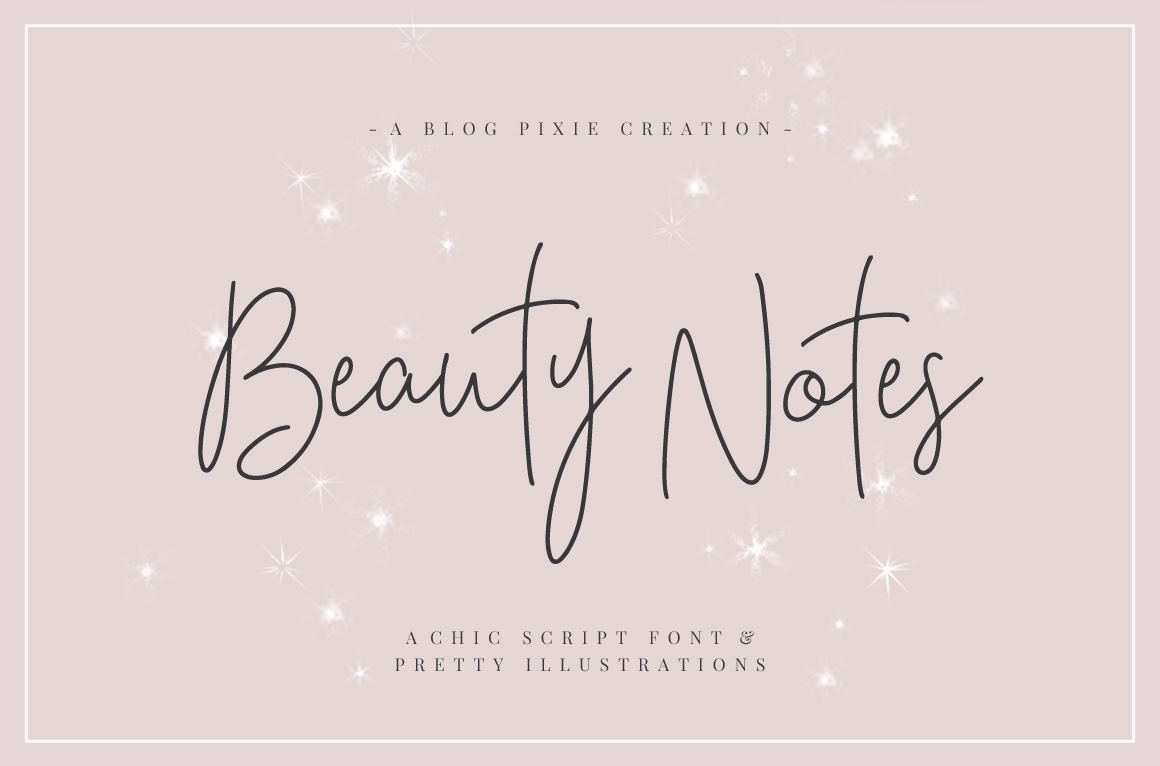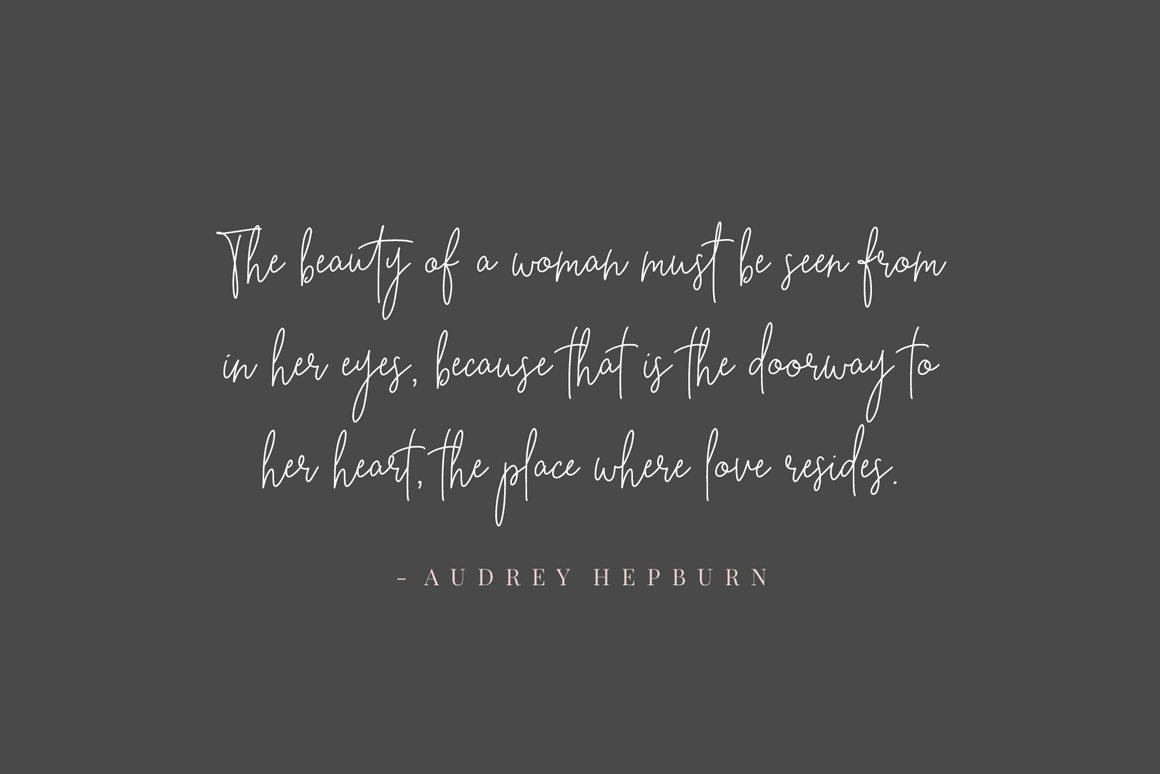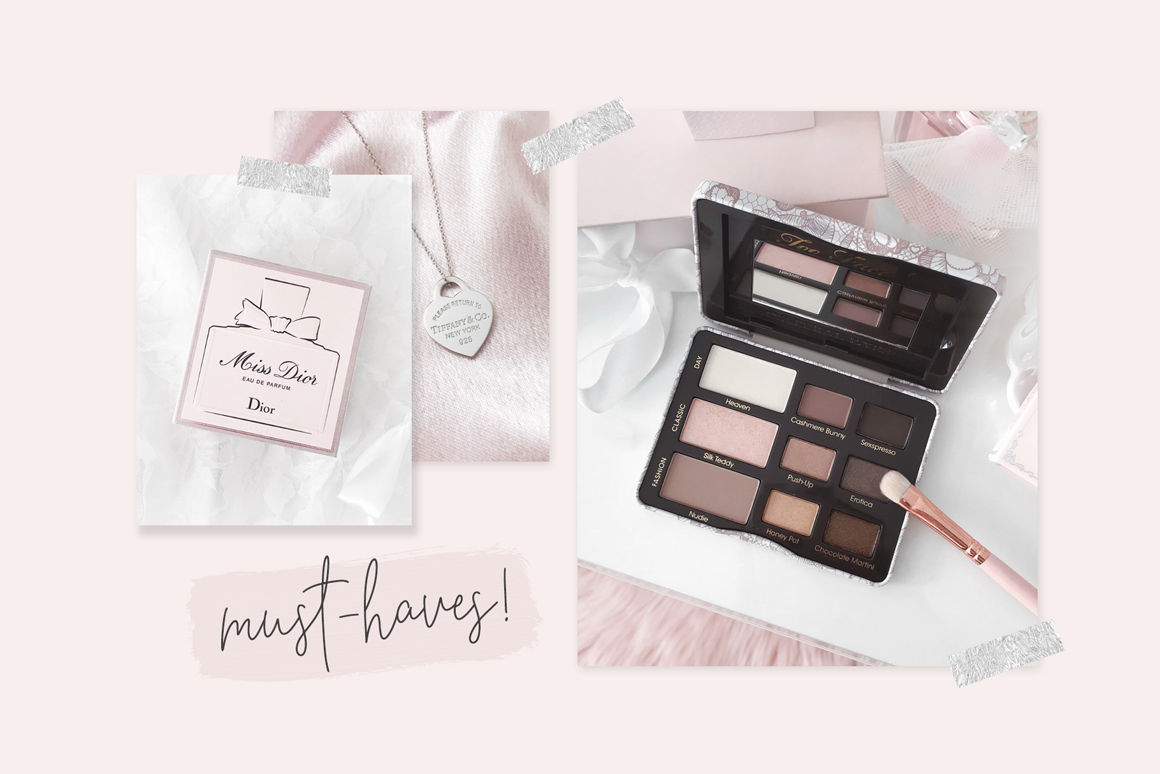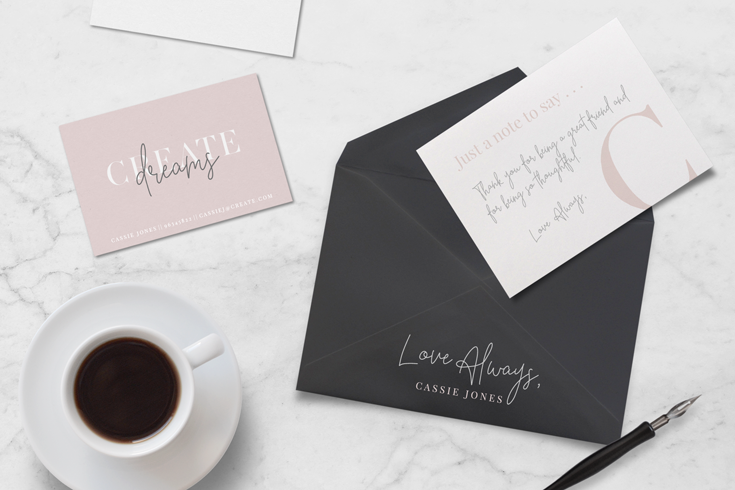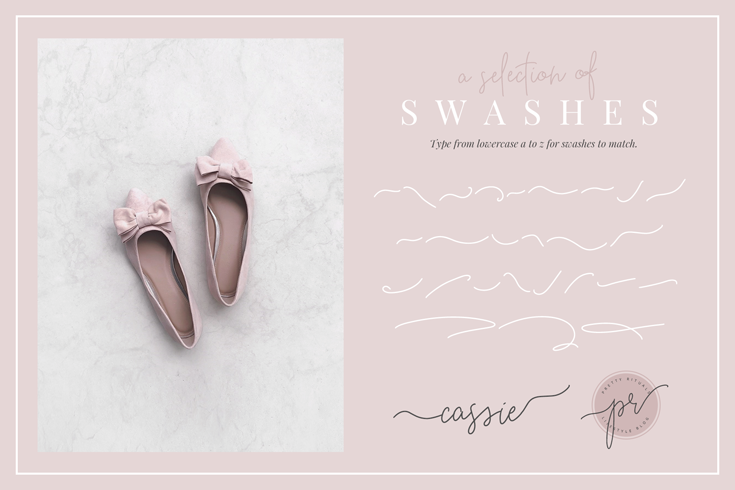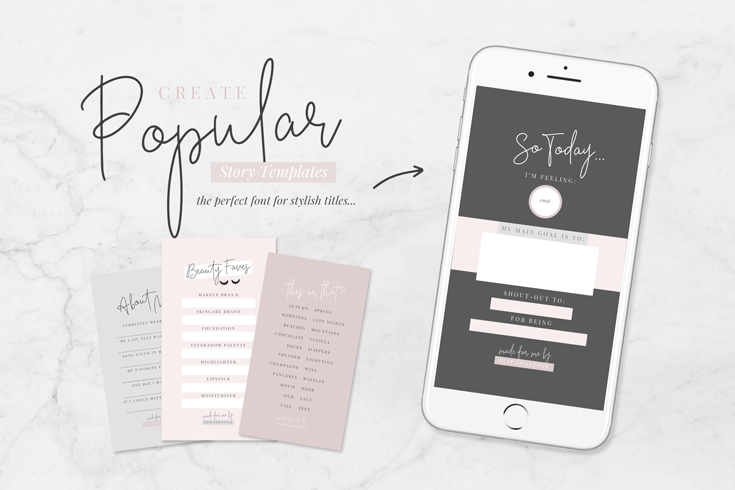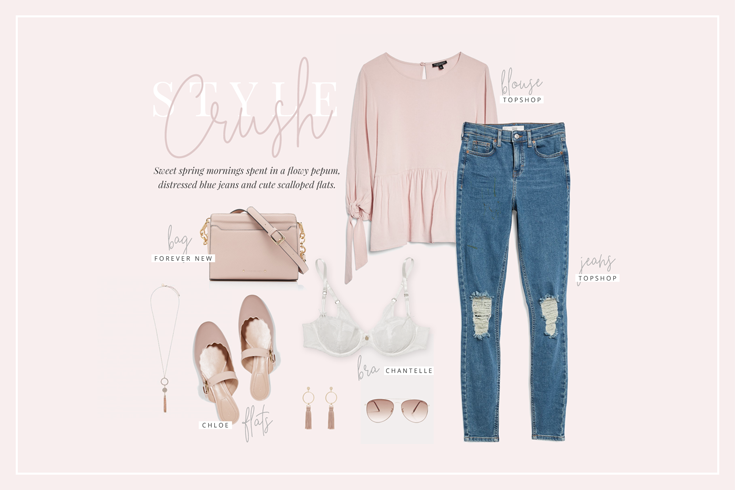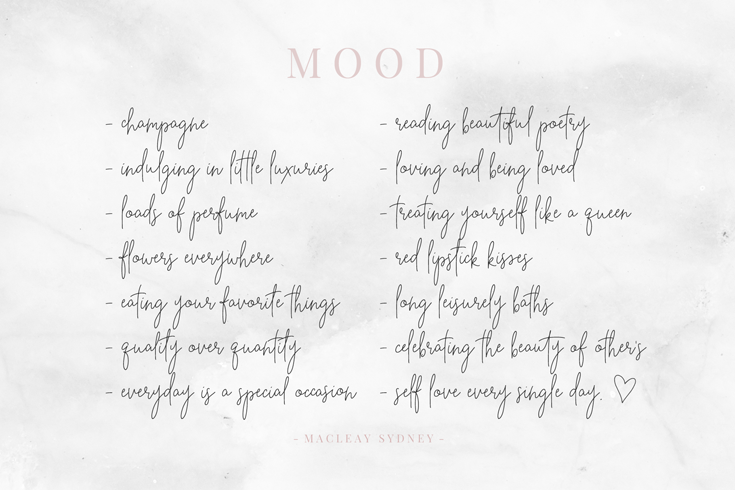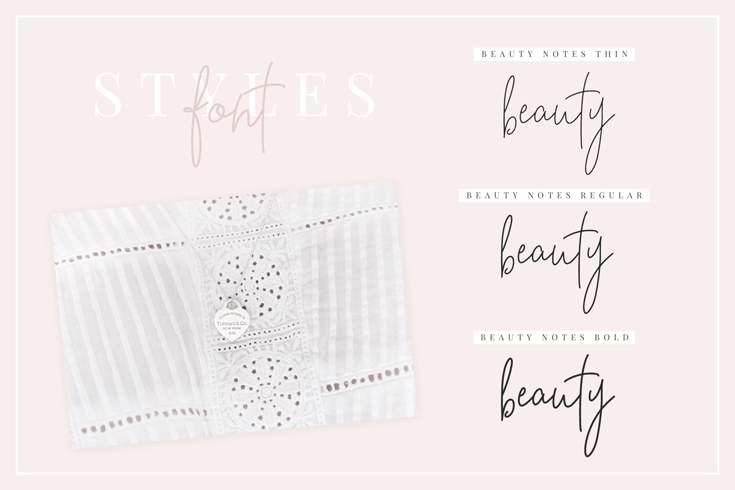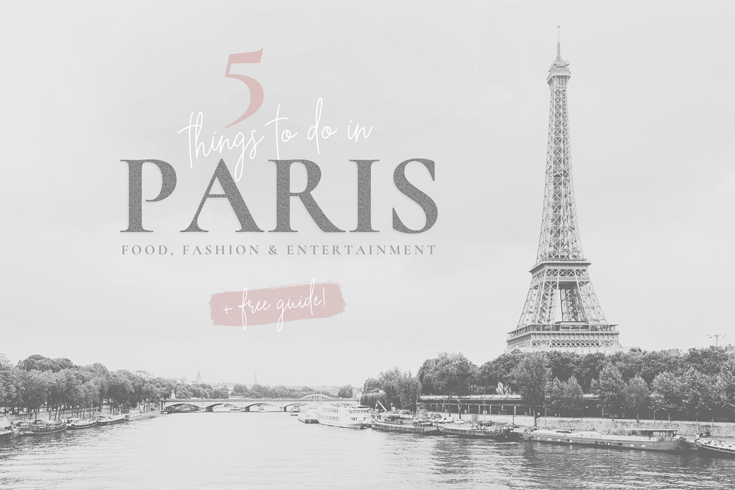
Introducing Beauty Notes, a premium chic handwritten script font you need in your collection!
Designed to provide that effortless, neat signature look for all types of projects, it's sure to become one of your most-used fonts for blogging, social media, editorial, logos, invitations, stationery, quotes and more.
This gorgeous font includes all lowercase and uppercase characters, numbers, punctuation, an array of standard ligatures and a selection of international characters as well (please type in the preview below to see if I have what you need!)
I've created it in three different weights - thin, regular and bold - so you can choose one that best suits the style of your project. All three weights have a separate swash font to go with it as well! Just type in lowercase a to z to find the type of swash you need and attach it to a letter.